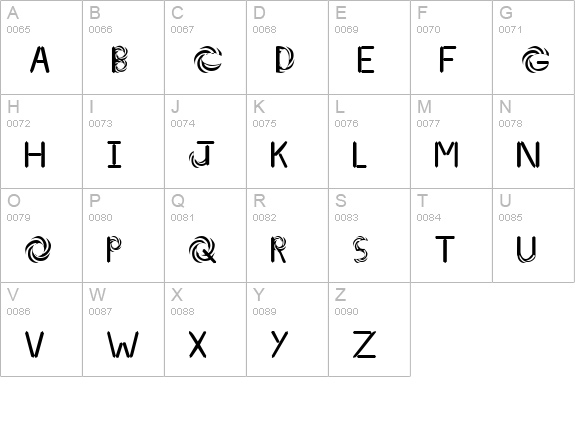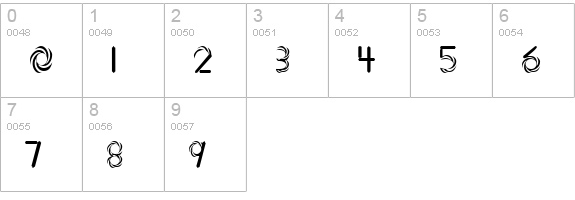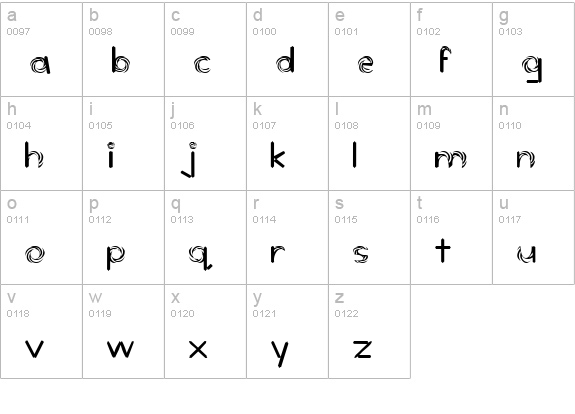
Today Font Details
Introducing Today font, a stunning typeface that effortlessly combines elegance and modernity. This versatile font is the perfect choice for any creative project, whether it be designing logos, crafting eye-catching headlines, or adding a touch of sophistication to your branding materials. With its sleek and refined letterforms, Today font captures attention and leaves a lasting impression. Its clean lines and graceful curves create a harmonious balance, making it incredibly pleasing to the eye. Whether used in print or digital formats, this font adds a sense of professionalism and polish to any design. But what truly sets Today font apart is that it is not only visually captivating, but also free. Yes, you read that right! Today font is freely available to download at FontsMarket.com. This means you can enhance your creative endeavors without any additional cost, making it an irresistible choice for designers, entrepreneurs, and hobbyists alike. So why wait? Discover the boundless possibilities of Today font and unlock your creativity. Whether you're designing a website, crafting a magazine layout, or simply adding a touch of elegance to your personal projects, Today font is the perfect companion. Download it for free at FontsMarket.com and embark on a journey of visual excellence.